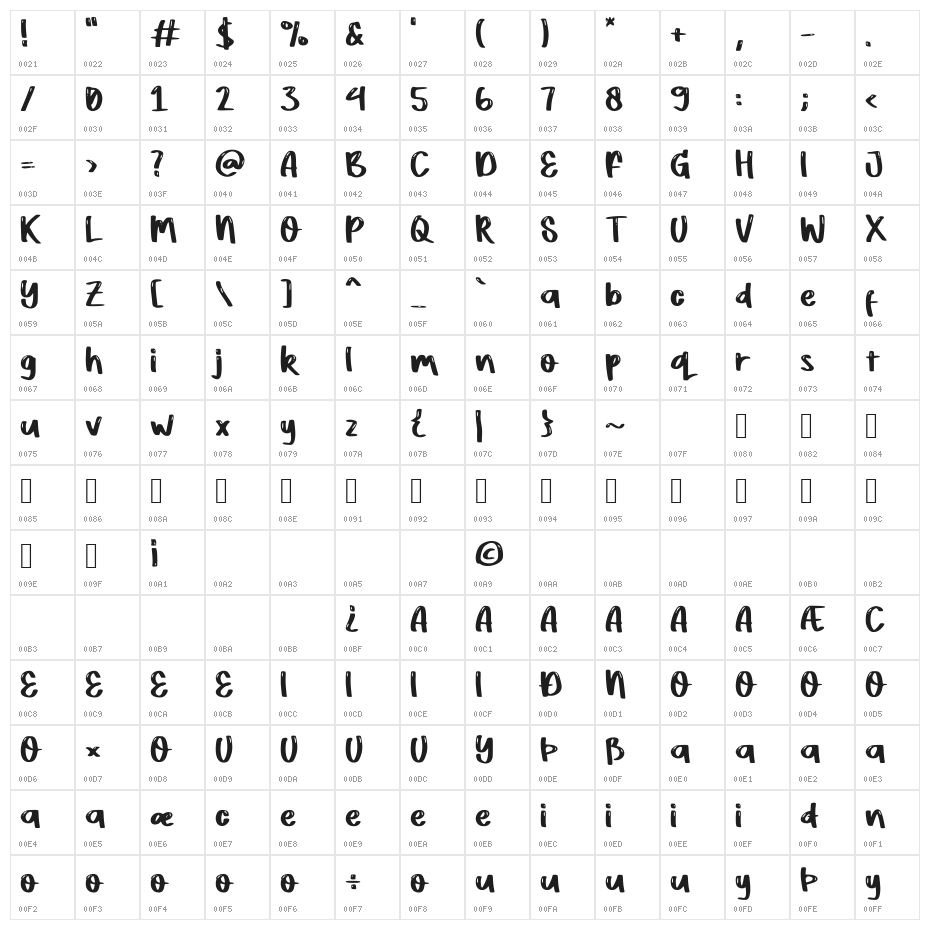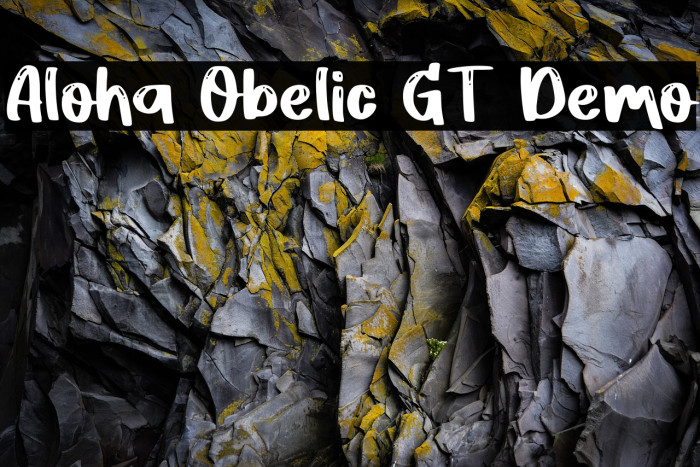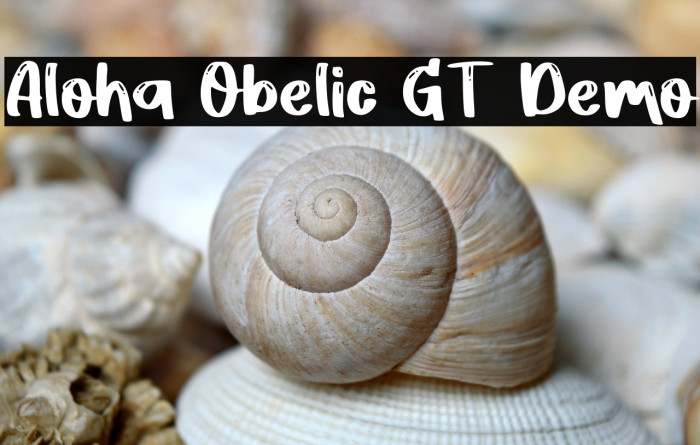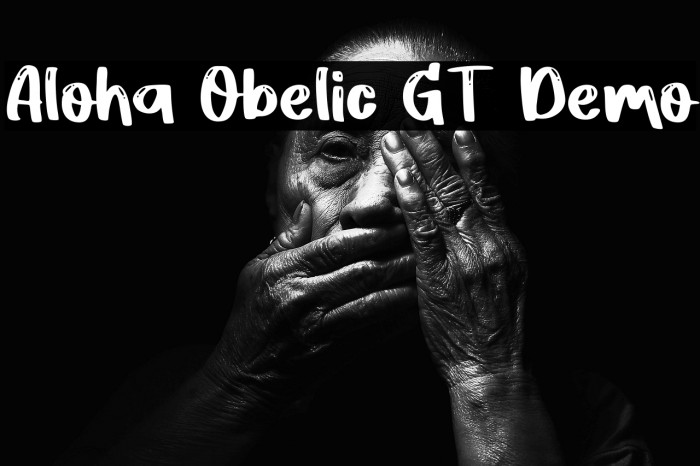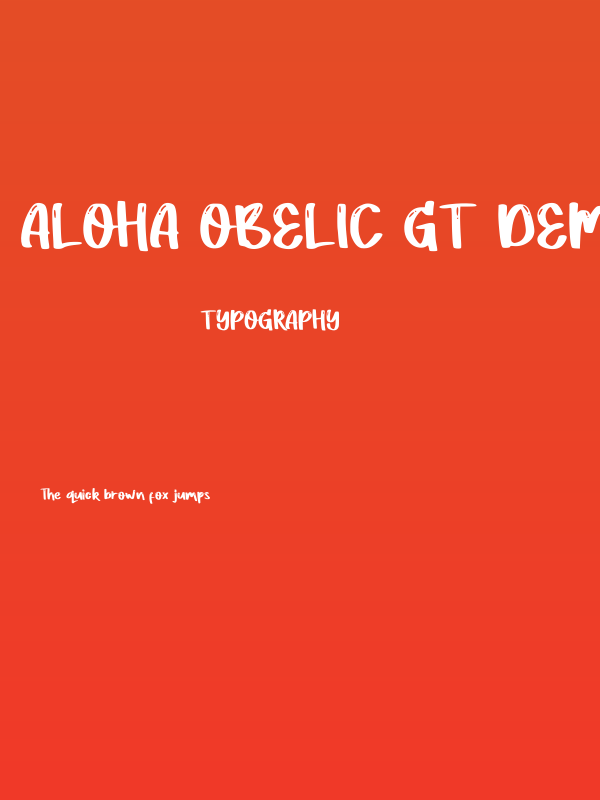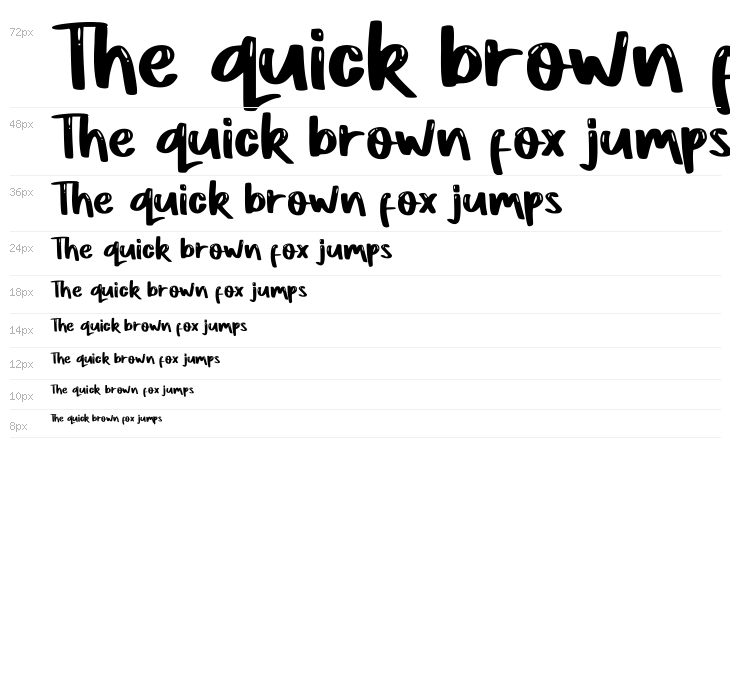
Aloha Obelic GT Demo Font
Aloha Obelic GT Demo Description
This font exhibits a bold and playful handwritten style, characterized by its thick strokes and casual, informal appearance. The letters have a lively and energetic feel, with a slightly irregular baseline that adds to its charm. The uppercase and lowercase letters are well-balanced, maintaining a consistent weight throughout. The numerals and special characters are equally expressive, complementing the overall aesthetic. This font is ideal for projects that require a personal touch, such as invitations, greeting cards, or playful branding materials.
| Proposed Projects | Ideal for invitations, greeting cards, playful branding, and creative posters. |